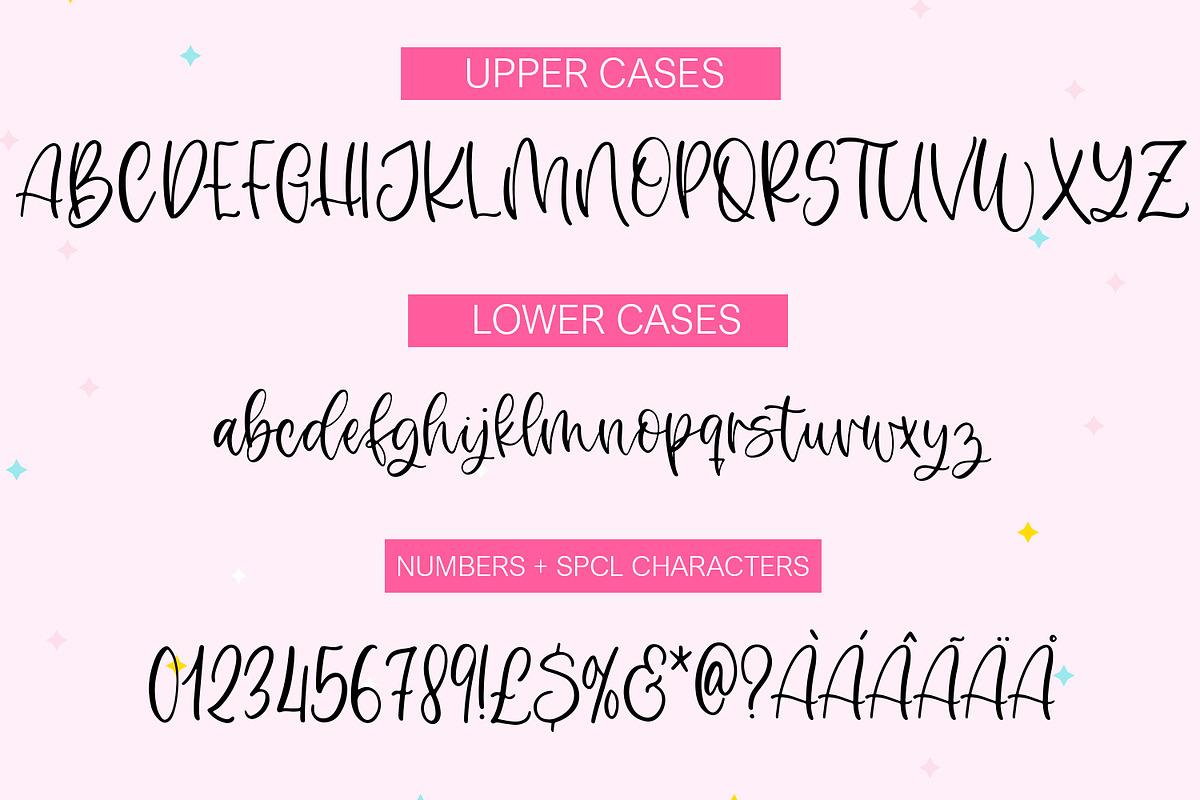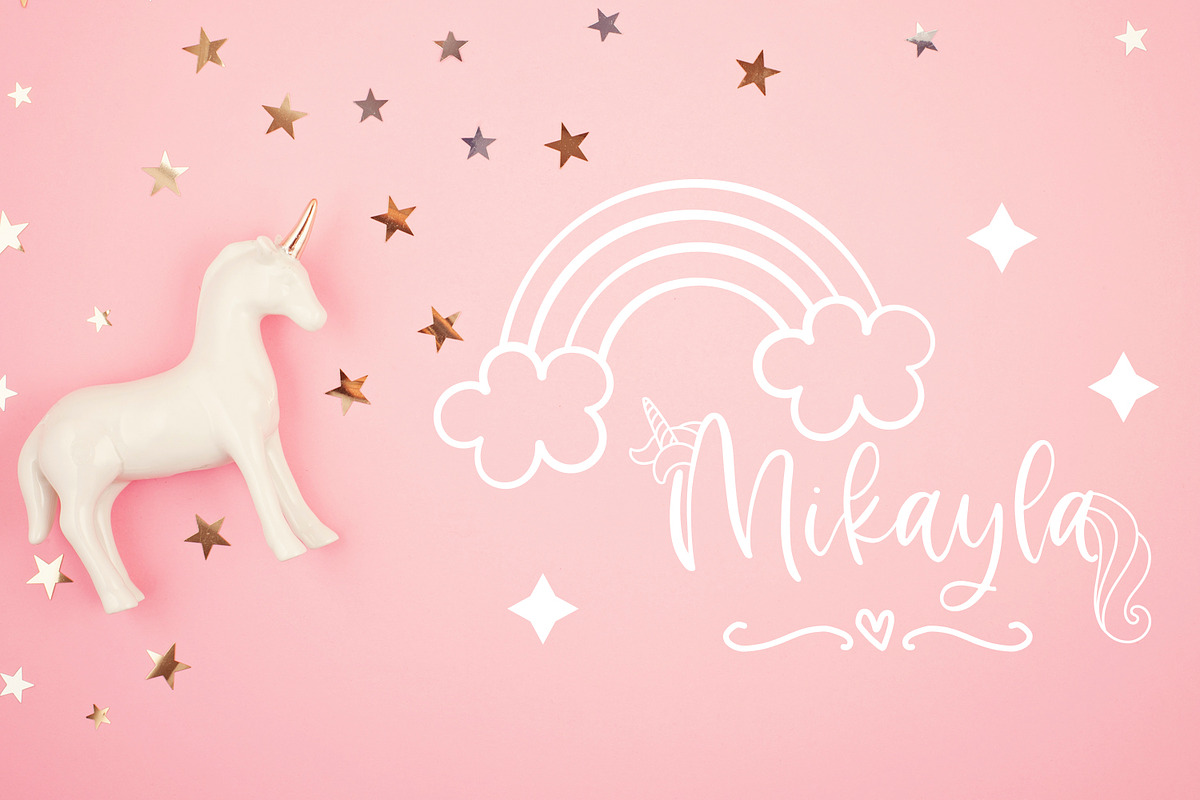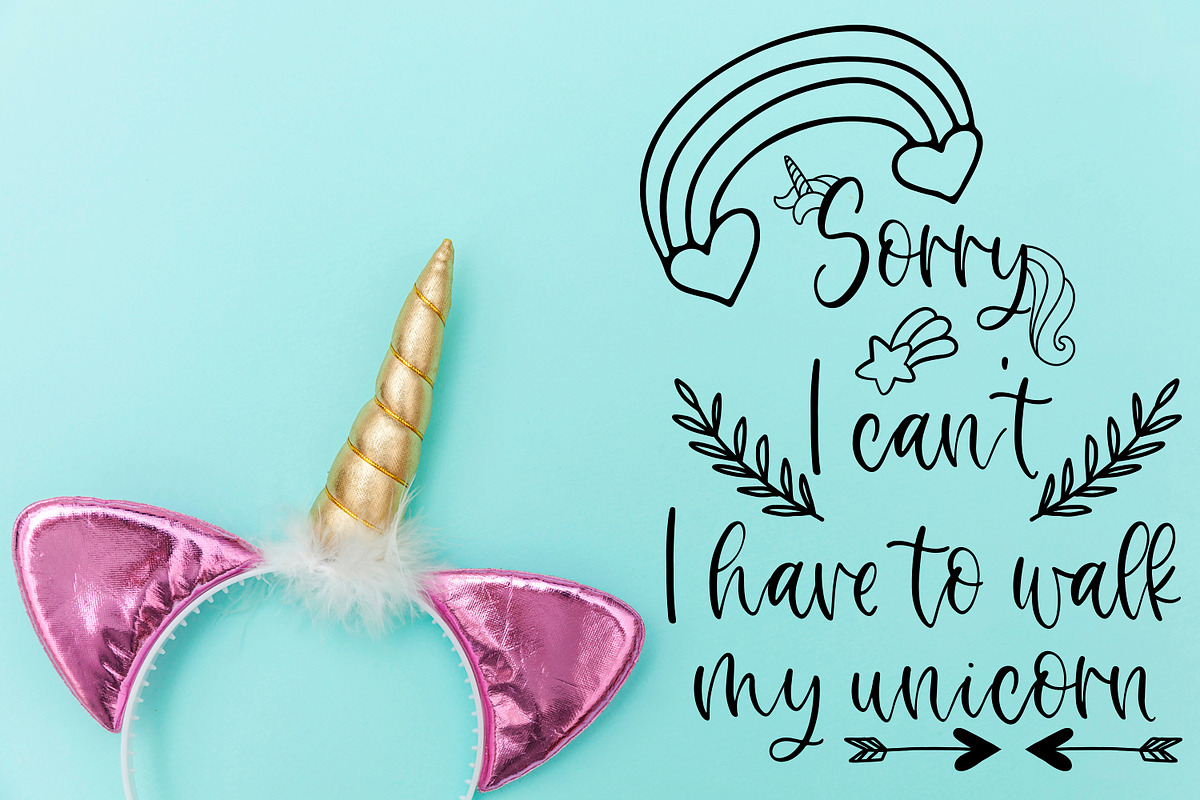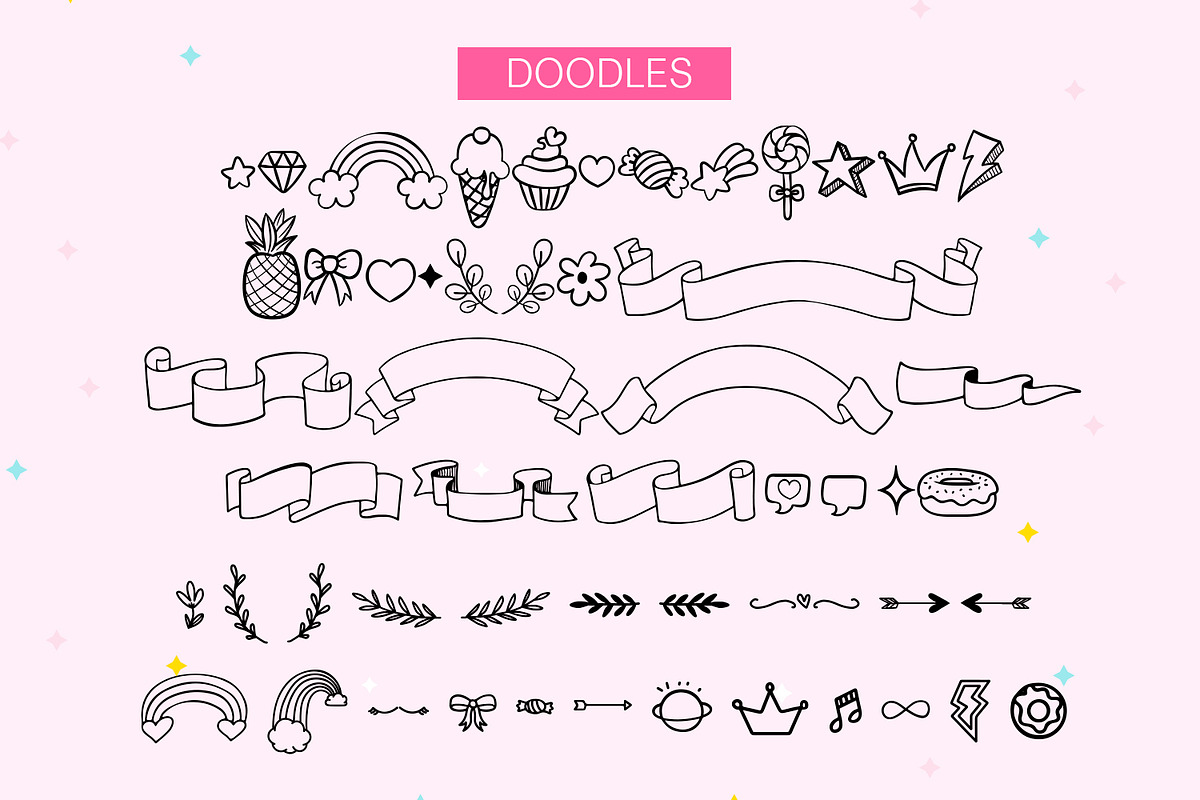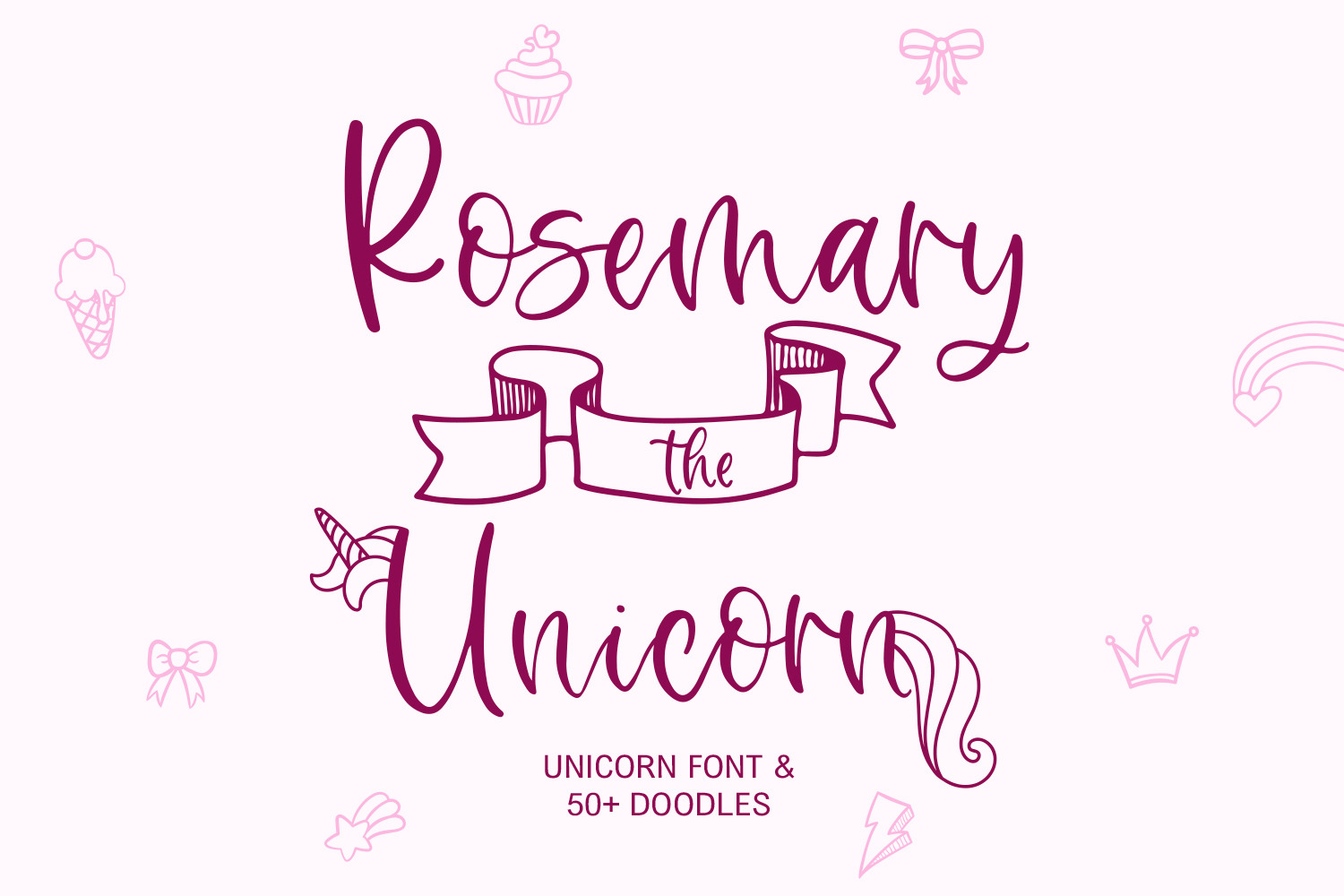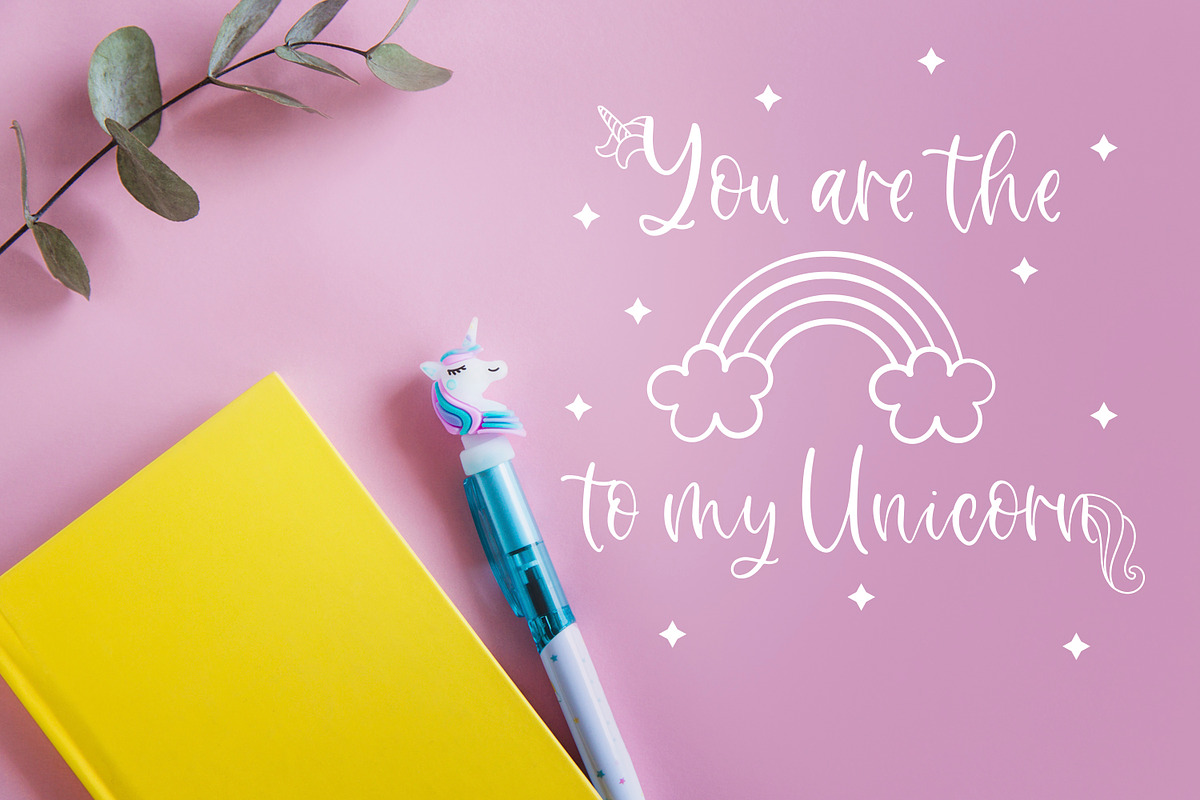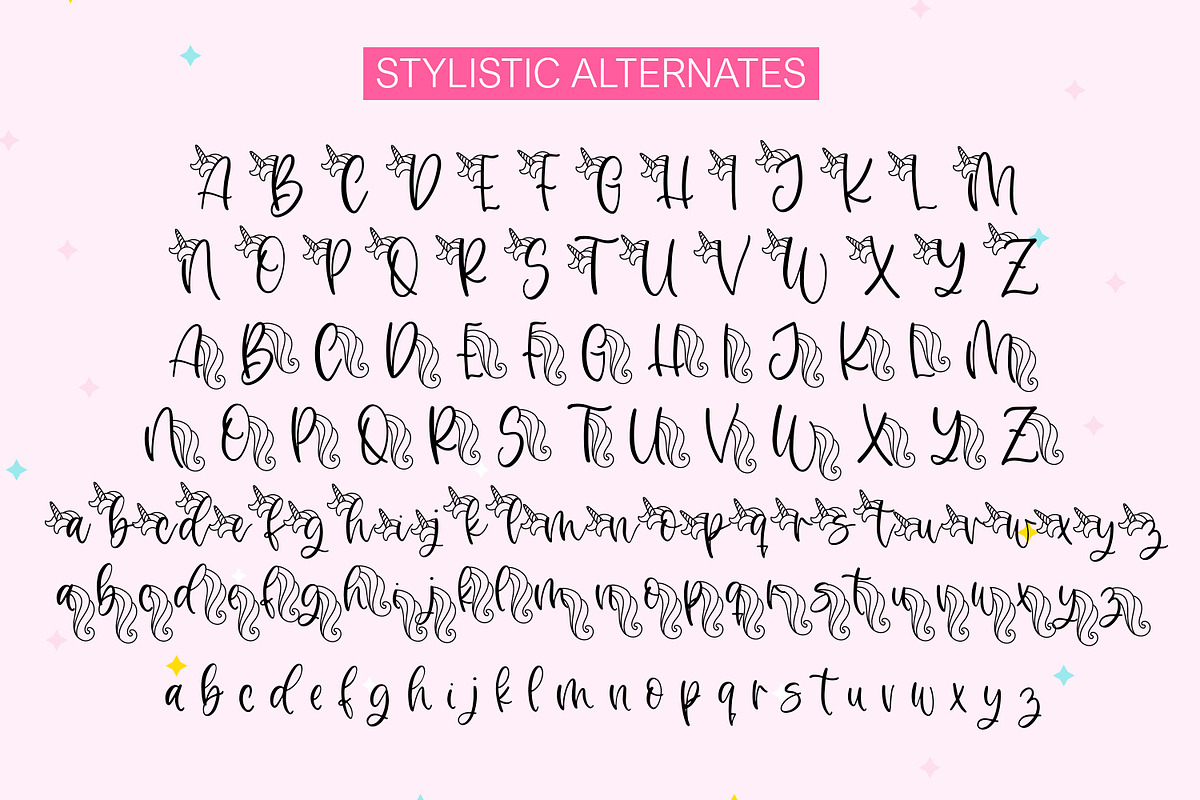
Rosemary The Unicorn Script Font
Introducing 'Rosemary the Unicorn' 🦄✨
Dive into the enchanting world of handwritten script with a whimsical twist! Our 'Rosemary the Unicorn' font is a magical creation that will add a touch of fantasy to your designs. Each letter comes to life with a unicorn horn at the start and a unicorn tail at the end, making your text truly enchanting.
🌟 Key Features:
Handcrafted with love and attention to detail Unique unicorn horn and tail embellishments for each letter Stylistic alternates for creative design possibilities Bonus file with 50+ charming doodles to spark your imagination
Whether you're designing invitations, greeting cards, posters, or anything in between, 'Rosemary the Unicorn' is your ticket to a world of fantasy and creativity. Let your designs come alive with the magic of this one-of-a-kind font.